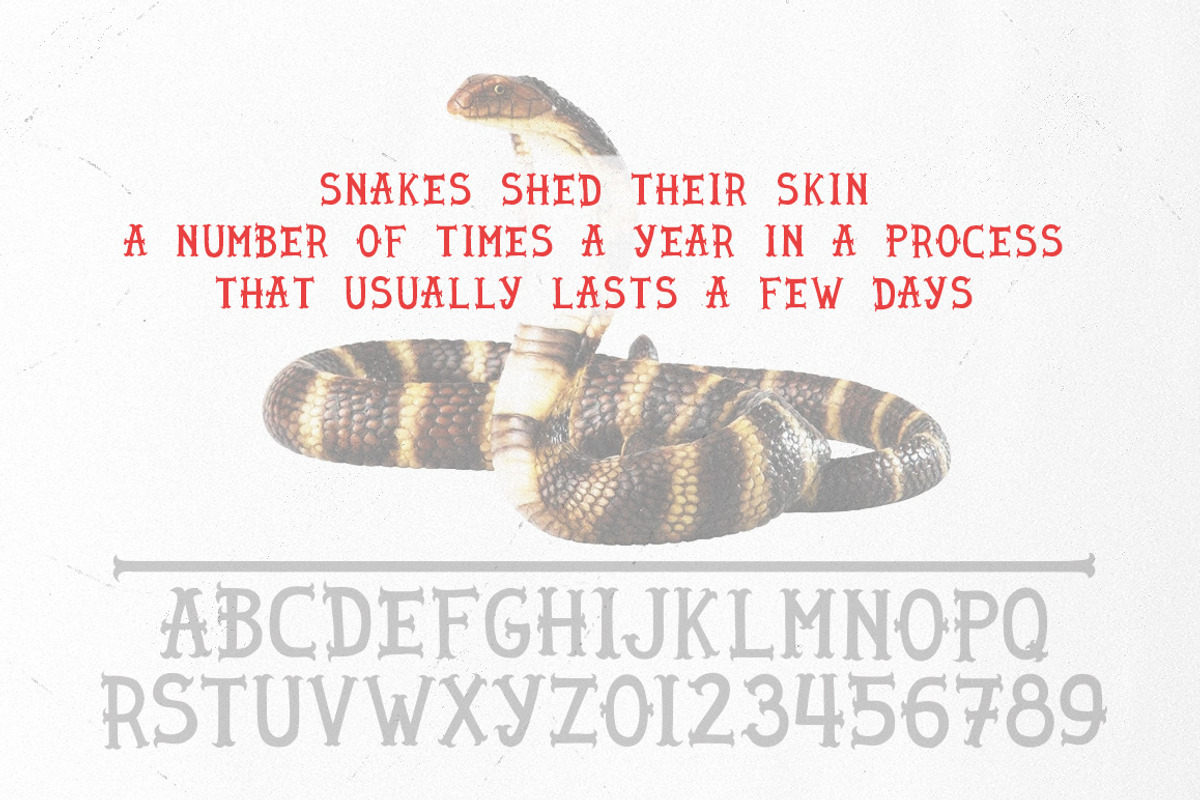
Snake end - hand drawn font
Snake end - hand drawn font by Dmitriylo is a font selected for branding, posters, packaging, typography.
Why Snake end - hand drawn font is worth a look
Snake end - hand drawn font by Dmitriylo fits naturally into Branding, posters, packaging, typography.